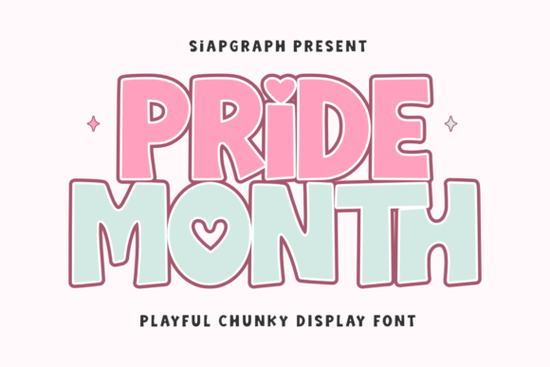
If you are planning to create graphics for parades, summer events, or year-round designs focused on inclusion, having the right typography can change everything. You need something that is bold enough to be read quickly but has personality to convey a message of love and acceptance. The Pride Month Font fits this requirement perfectly because it combines chunky, substantial shapes with clean details suitable for both digital screens and physical cut files. Many creators look for typefaces that work seamlessly with vinyl plotters while still holding up visually in social media posts.
Why choose a font optimized for cutting?
When working with Cricut or Silhouette machines, file integrity matters. A standard decorative font often comes with tiny ligatures or disconnected parts that break the blade's path. This specific display font is constructed specifically for easy cutting. The letters feature distinct outlines and deliberate spacing, meaning you spend less time fixing broken nodes and more time finishing your project. This optimization ensures a professional result on vinyl stickers, custom t-shirts, and festive mug designs without requiring extensive manual repair.
The construction allows for straightforward layer management, which helps maintain consistency across multiple items. Whether you are making party decorations or stocking a Print on Demand shop, reliability saves time and reduces material waste. For those who prefer simpler, more rounded aesthetics alongside bold options, exploring clover-inspired typeface varieties can offer complementary styles for softer seasonal projects.
Balancing bold strokes with romantic details
A major appeal of this typeface lies in its heart accents. These subtle flourishes add warmth to the design without overwhelming the legibility of the words. If you are designing merchandise for anniversaries or special Valentine’s gatherings, understanding how to blend boldness with tenderness is key. While this type works great for joyous celebrations, you might find yourself wanting contrast for certain layouts. In those cases, looking into soft romantic scripts can help you balance heavy display text with lighter elements.
Sometimes a design calls for intricate details rather than block letters. If your current project leans toward luxury invitations or wedding signage instead of festival gear, comparing this chunky style with elaborate lettering options helps you understand the visual weight differences available in the library. Choosing the right tool depends on your end goal; sometimes a heavy stroke is exactly what is needed to grab attention instantly.
Ideas for commercial and personal use
DIY enthusiasts might use it to make custom tote bags for school events or community group shirts. The cheerful personality of the letters brings a sense of unity to any gathering. If you enjoy playful characters alongside your main text, browsing whimsical frog style graphics could pair well with the celebratory theme to create mixed-media layouts. Mixing different font personalities adds depth to your compositions.